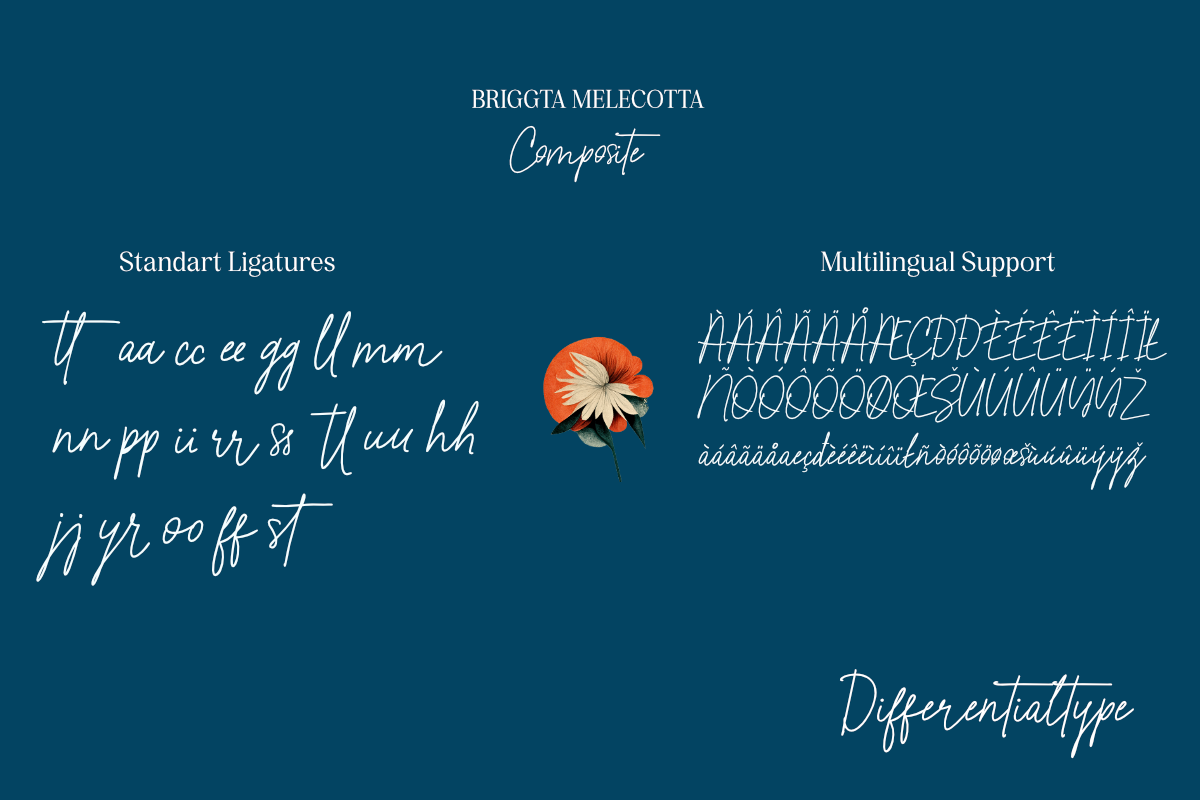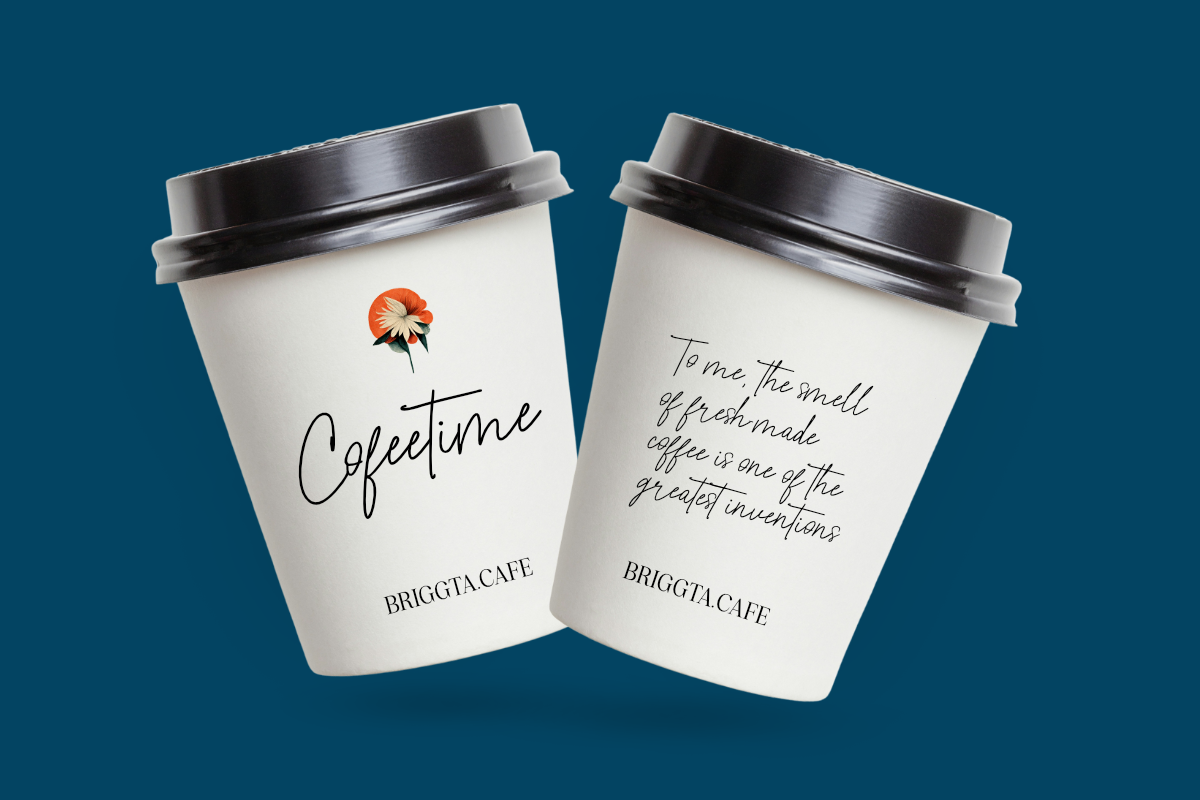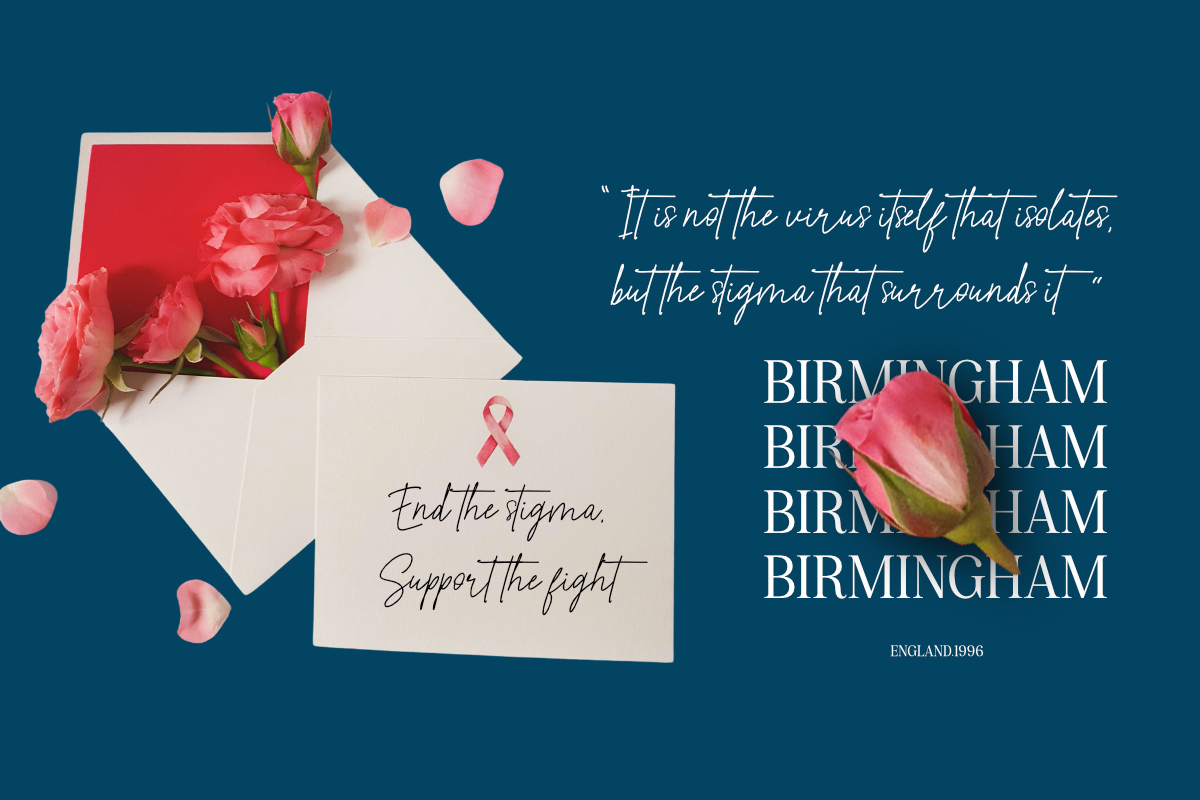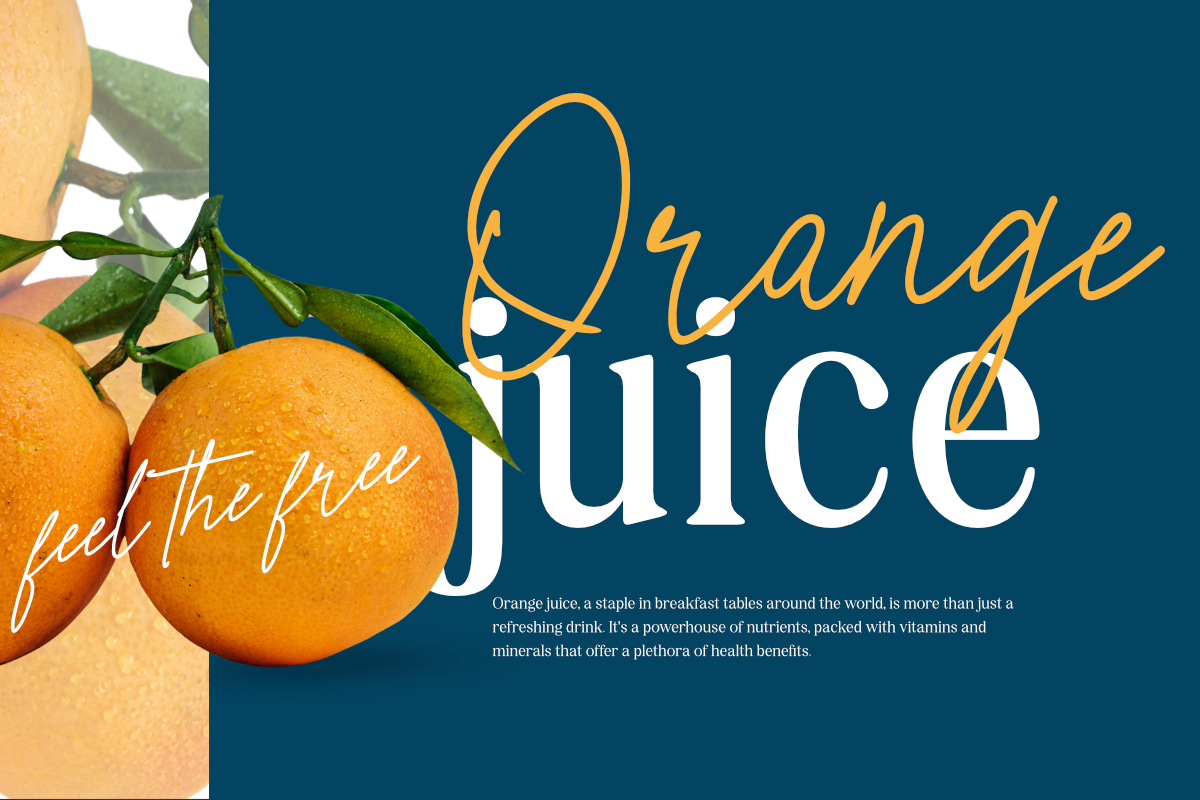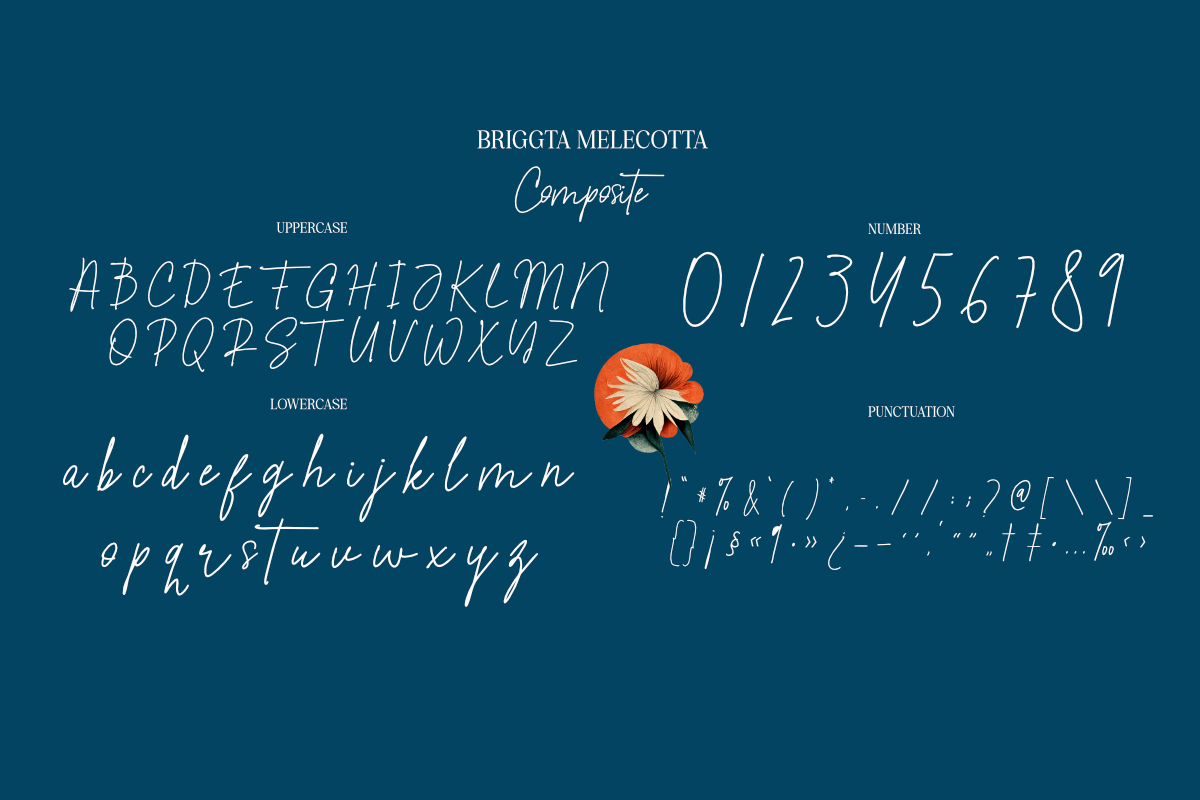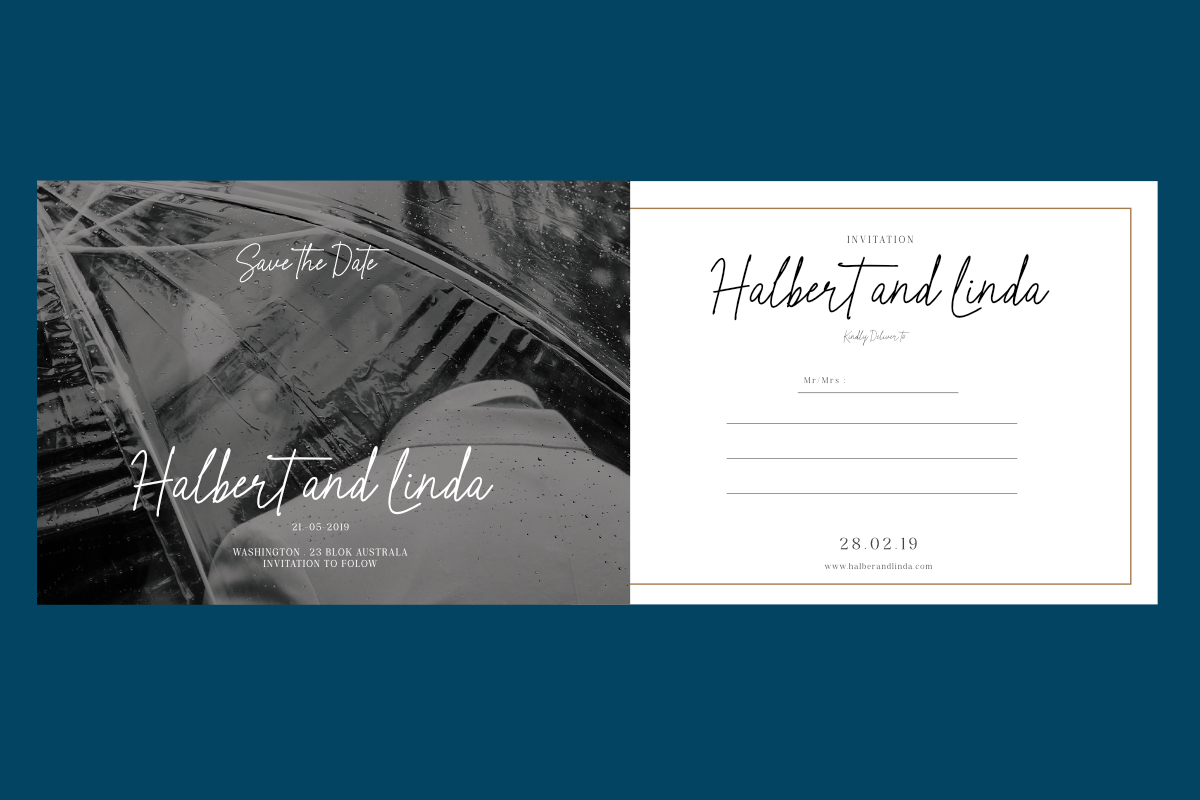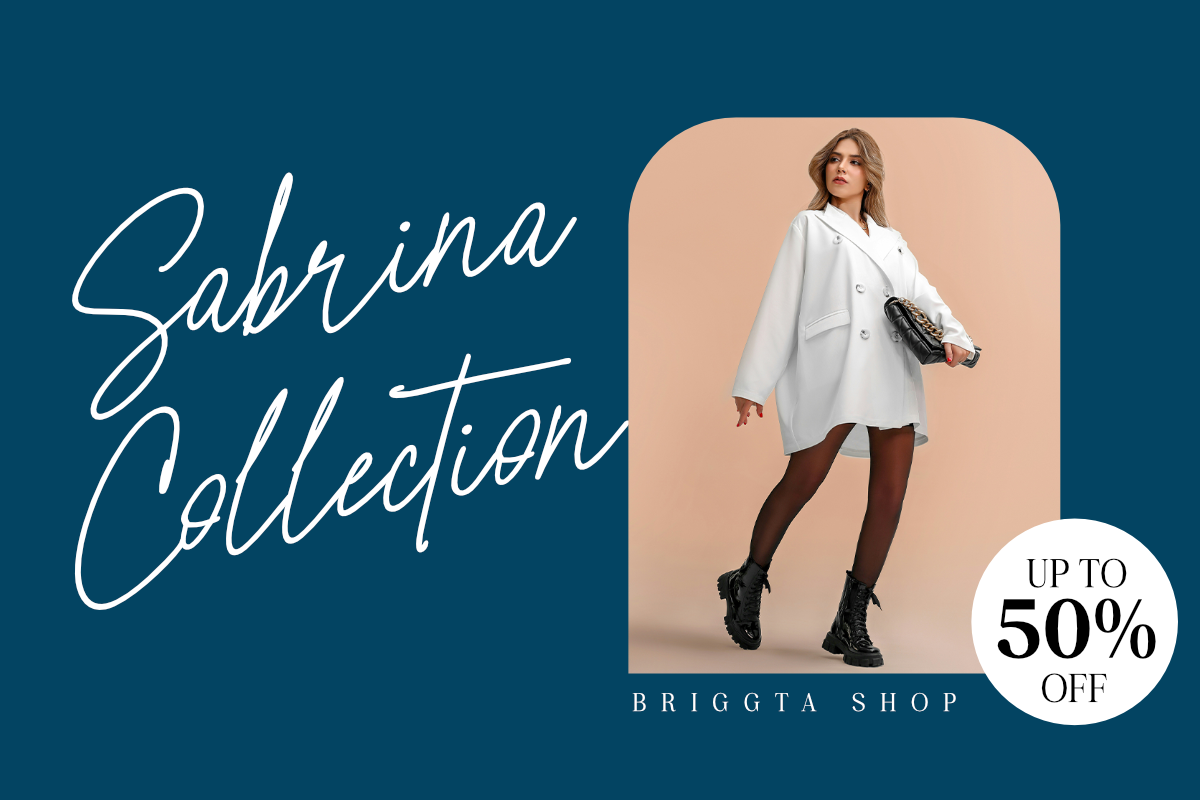
Briggta Melecotta
Introducing Briggta Melecotta, a unique handwritten font with a signature flair, characterized by its elegant monoline style. Perfect for adding a personal touch to various design projects, this font is ideal for logos, branding, wedding invitations, and more, exuding a sense of warmth, authenticity, and sophistication that makes it an excellent choice for designers seeking to add a touch of luxury and refinement to their work.